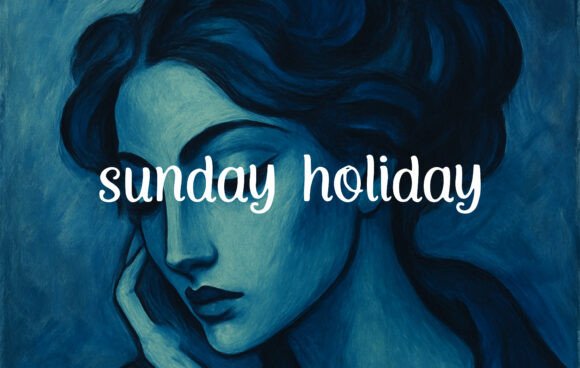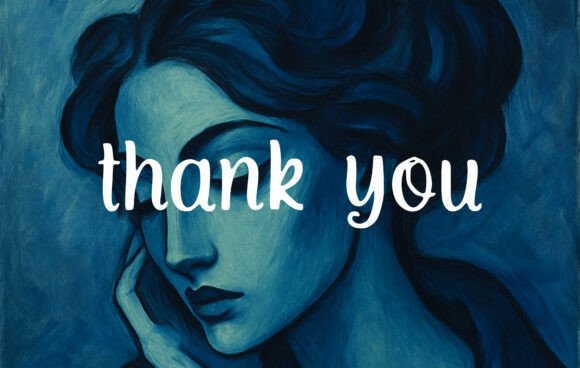
The Perfect Brushstroke: Unlocking the Artistry Font
Have you ever sat at your desk, staring at a blank canvas or page, searching for the perfect font to bring your creative vision to life? The blank stare, the endless scrolling through fonts, the ‘this one’s too bold, that one’s too bland’ conundrum – we’ve all been there. But what if I told you there’s a font that can elevate your designs, add a touch of sophistication, and leave a lasting impression? Enter the Artistry Font, a masterfully crafted typeface that seamlessly blends elegance with artistic charm.
Designed to add a refined, high-end feel to any design, the Artistry Font is the perfect choice for designers seeking a typeface that stands out while remaining beautifully legible. Its clean yet expressive design makes it ideal for projects ranging from logos and wedding invitations to boutique branding and book covers.
Key Features of Artistry Font
- Font Family: Artistry is a unique, modern script font with a elegant and sophisticated feel.
- Character Set: Includes a wide range of characters, including uppercase and lowercase letters, numbers, and punctuation marks.
- Unique Characteristics: Features a distinctive, flowing script style with subtle flair and elegance, making it perfect for creative projects, invitations, and branding materials.
Artistry Font Review
Overall, I’m impressed with the Artistry Font. It’s a beautiful, elegant script that can elevate any design project. Here’s what works well:
- ✨ The fluid connections between letters are smooth and natural-looking, making it perfect for typography-heavy designs.
- ✨ The subtle flair at the ends of letters adds a touch of sophistication and refinement.
- ✨ The font is highly customizable, allowing you to adjust the weight, spacing, and other attributes to fit your project’s needs.
- ⚠️ The font may not be ideal for text-heavy projects, as the script nature of the font can make it difficult to read at smaller sizes.
- ⚠️ The font’s high customization options can be overwhelming for designers who are new to typography or aren’t familiar with the intricacies of font design.
Overall, I’d give the Artistry Font 4 out of 5 stars. While it’s not perfect, its elegant design and high customization options make it a great choice for designers who want to add a touch of sophistication to their projects. With some careful consideration of its limitations, I think this font has the potential to become a staple in any designer’s toolkit.
Tips: Use Artistry Font for creating elegant and sophisticated designs, such as wedding invitations, business cards, and social media graphics.
Tips: Use Artistry Font for creating intricate and detailed designs, such as typography-based art, posters, and magazine covers.
Tips: Use Artistry Font for creating professional and elegant presentations, reports, and documents.
Artistry Font is ideal for:
- Business cards and corporate branding
- Social media graphics and advertising
- Professional presentations and reports
Alternatives to Artistry Font for Designers
Playfair Display is a luxurious, high-end font ideal for use in branding, advertising, and editorial content. It features elegant, cursive lines and refined details, making it suitable for sophisticated designs. Use it for titles, headings, and other prominent text elements where you want to convey luxury and elegance.
Comparison to Artistry Font: While both fonts share a touch of elegance, Playfair Display is more refined and luxurious, whereas Artistry Font has a more modern and versatile feel.
Great Vibes is a beautiful, handwritten font that’s perfect for creative and artistic projects. It features a relaxed, casual feel and is ideal for use in blog posts, social media, and other informal content. Use it for quotes, titles, and other text elements where you want to add a personal touch.
Comparison to Artistry Font: While both fonts have a creative feel, Great Vibes is more casual and relaxed, whereas Artistry Font is more modern and sophisticated.